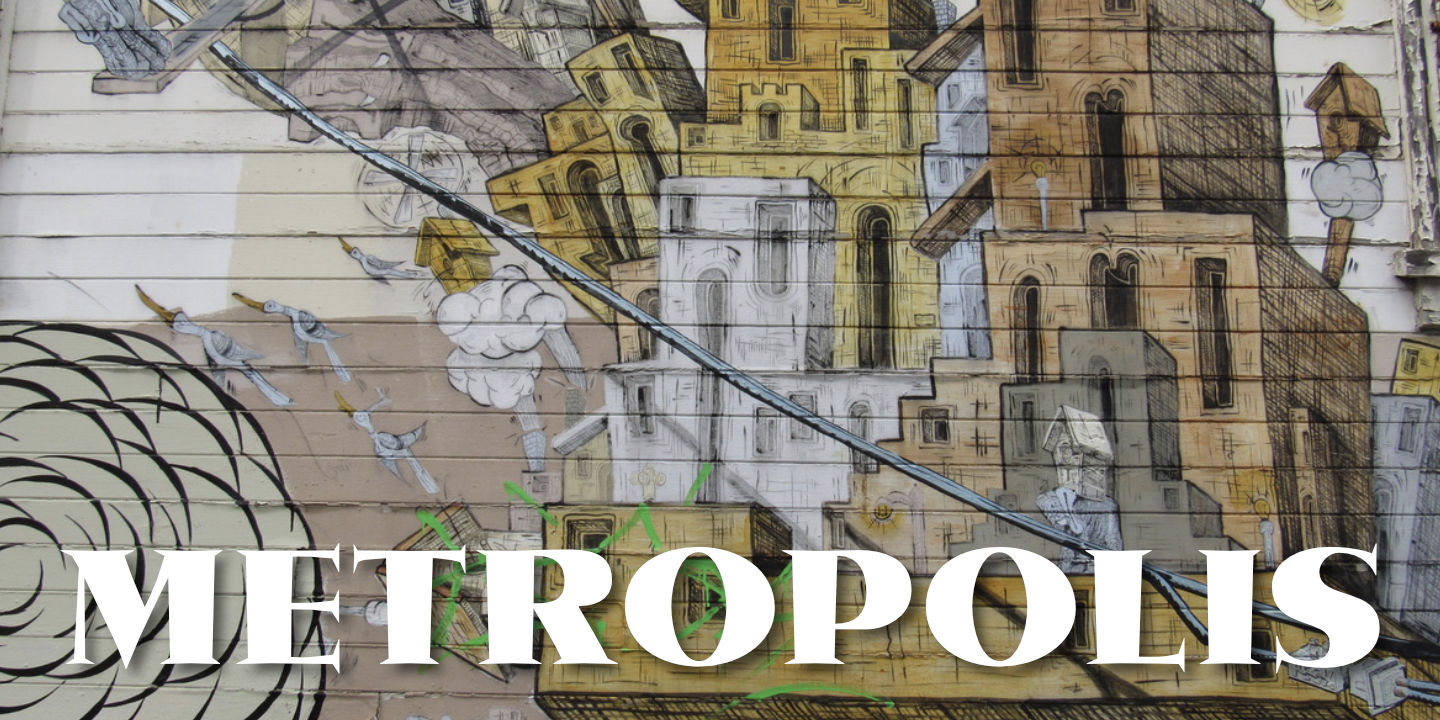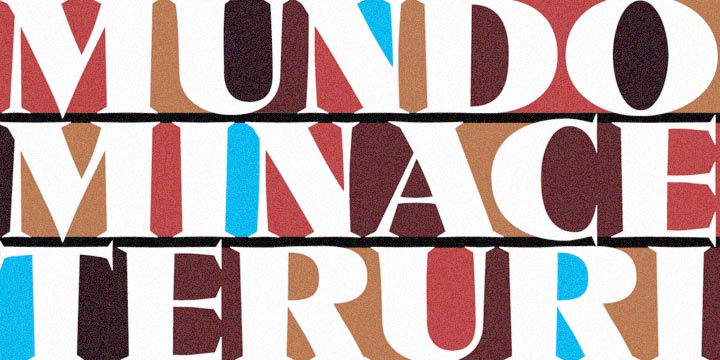
Metropolis Bold
Metropolis Bold was commissioned by Publish magazine for their 1990 redesign. Metropolis CT Bold is based on the 1932 Stempel cut as designed by W. Schwerdtner. See aso Metropolis CT Shaded.